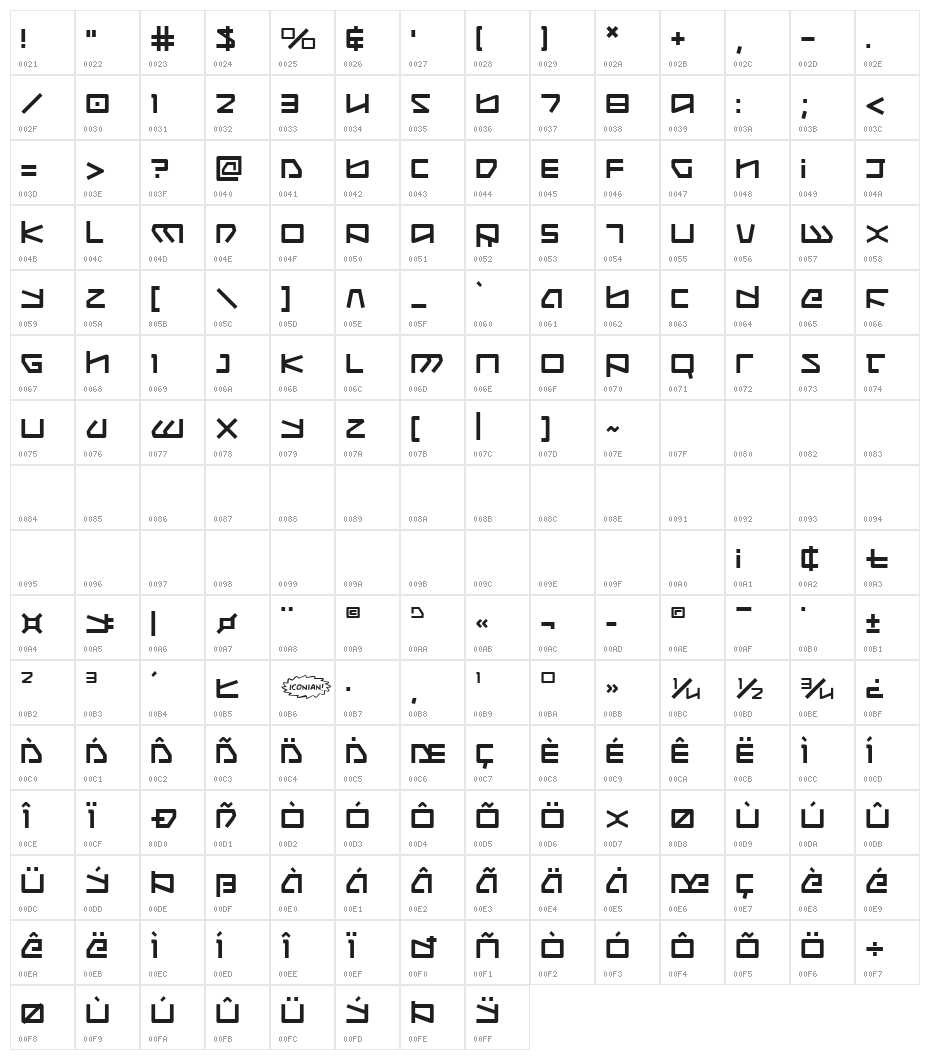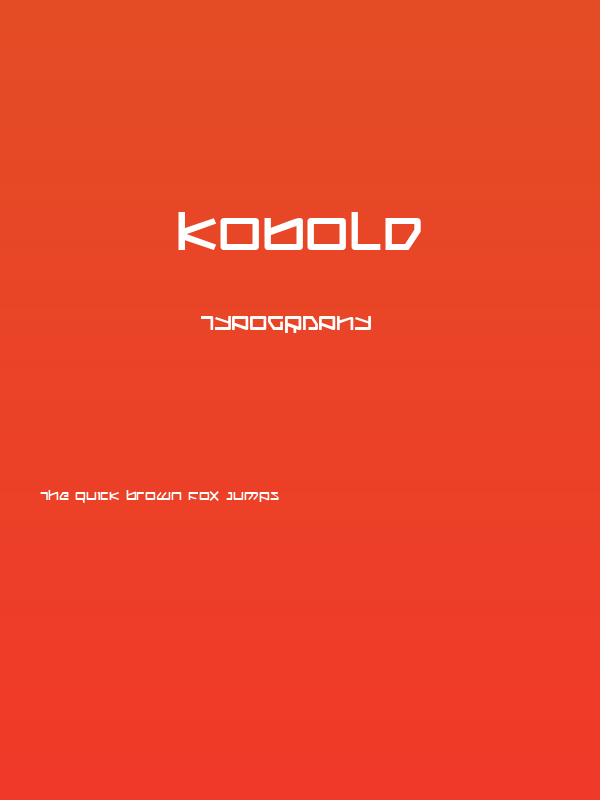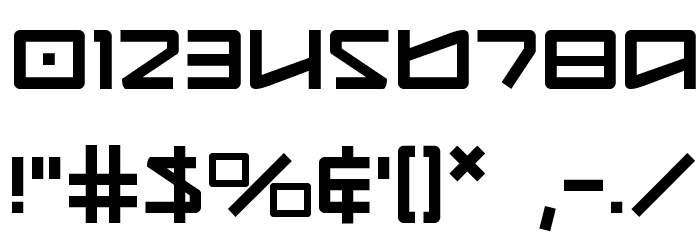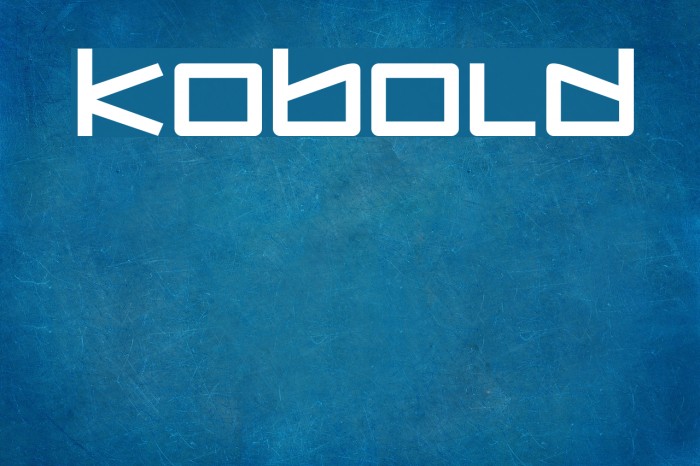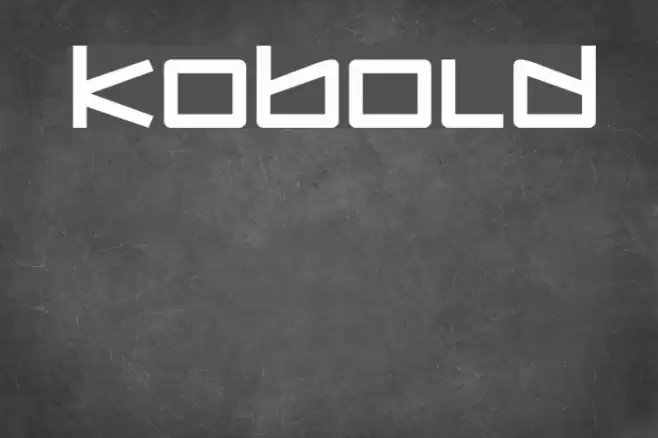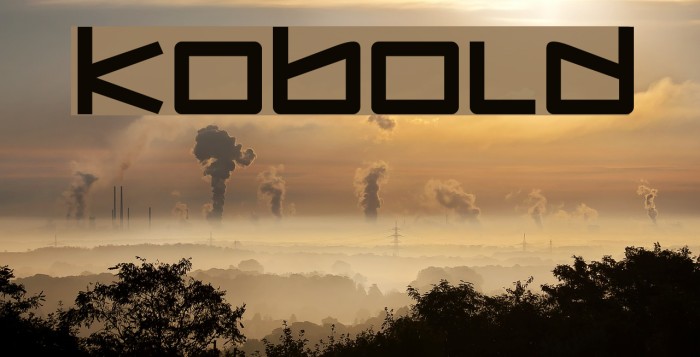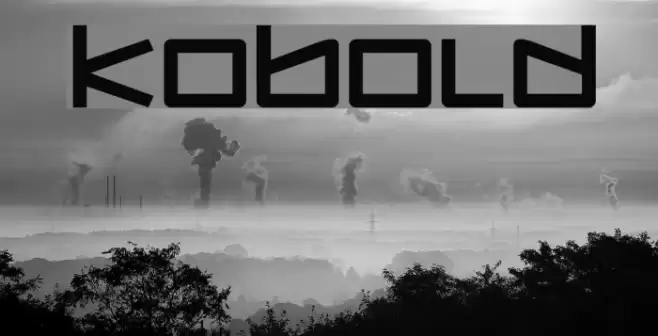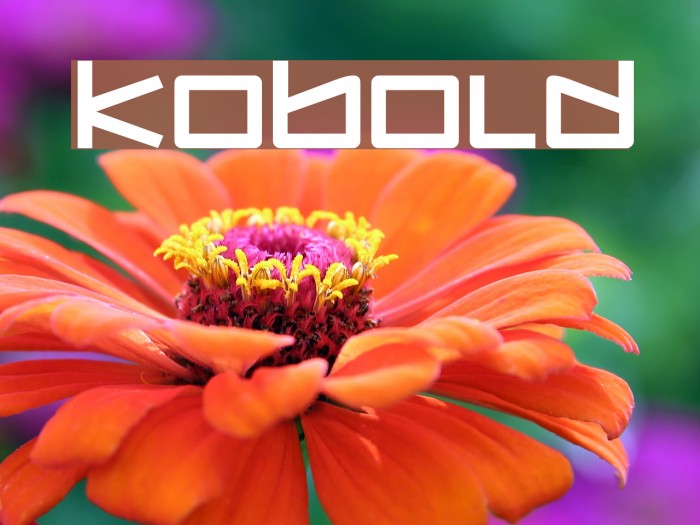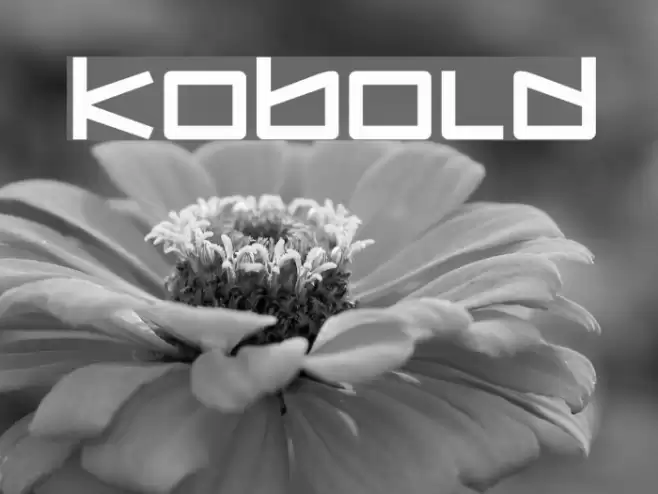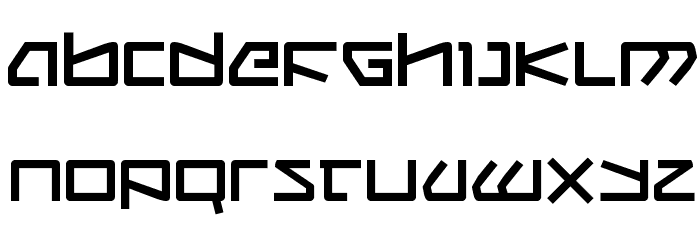
Kobold Font
Kobold Description
This font features a bold and geometric design, characterized by sharp angles and a futuristic aesthetic. The uppercase and lowercase letters maintain a consistent style, with angular cuts and a uniform stroke width that gives the font a cohesive look. The numerals and special characters follow the same design principles, ensuring a seamless integration across different uses. The font's distinct style makes it suitable for projects that require a modern and edgy appearance, such as technology branding, sci-fi themed designs, or video game interfaces.
| Overall Style | Futuristic |
| Use Case | Logos, Headlines, Posters |
| Proposed Projects | Ideal for technology branding, sci-fi themes, video game interfaces, and modern advertising. |